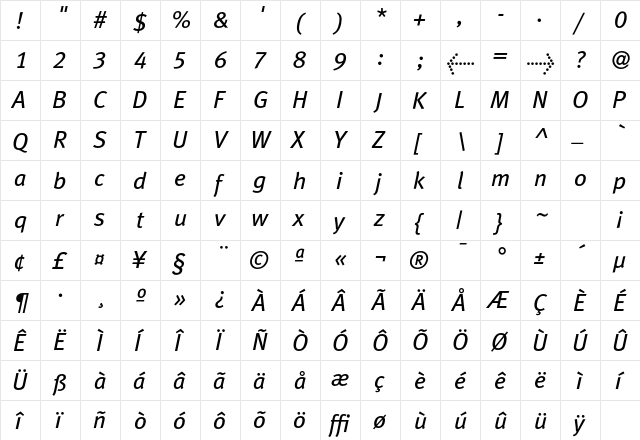
MetaPlusLining BookItalic Font Preview
MetaPlusLining BookItalic
MetaPlusLining BookItalic Font Details
| Style | BookItalic |
Design Context for MetaPlusLining Typeface
MetaPlusLining takes a measured approach to typography — its balanced proportions and neutral character make it a reliable workhorse for both digital and print work. The slanted form adds forward momentum and visual energy.